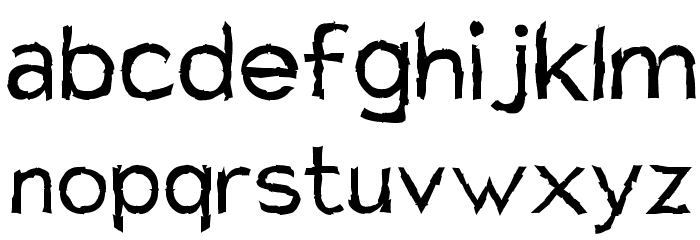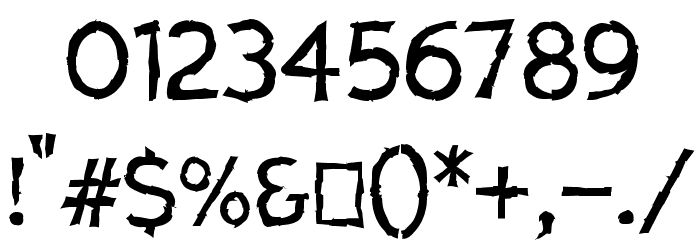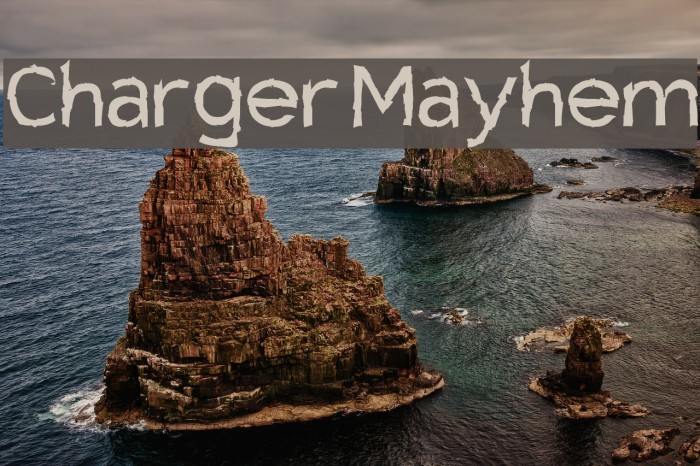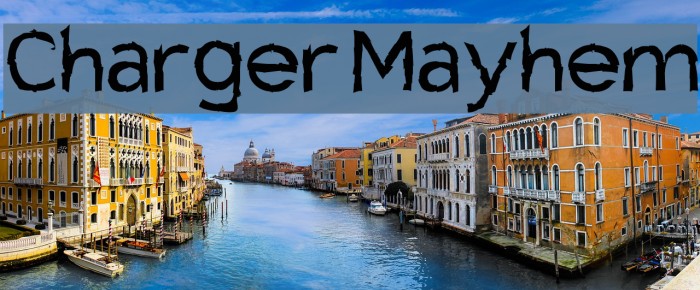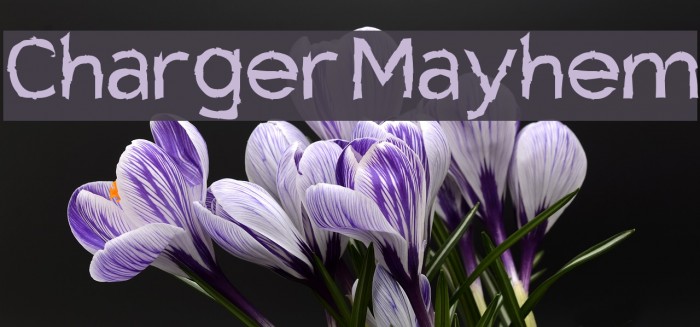
Charger Mayhem Font
This font features a rugged, distressed style that gives it a chaotic and energetic appearance. The characters are uneven and jagged, resembling hand-drawn or scratched letters. The uppercase and lowercase letters maintain a consistent roughness, while the numbers and special characters follow the same edgy design. This font's unique style makes it stand out, offering a sense of rebellion and dynamism. The irregular strokes and sharp angles contribute to its distinctive look, making it suitable for projects that require a bold and unconventional aesthetic.
A rugged, distressed font with jagged, hand-drawn style.
- Proposed Projects: Ideal for music album covers, posters, graffiti art, and edgy branding projects.